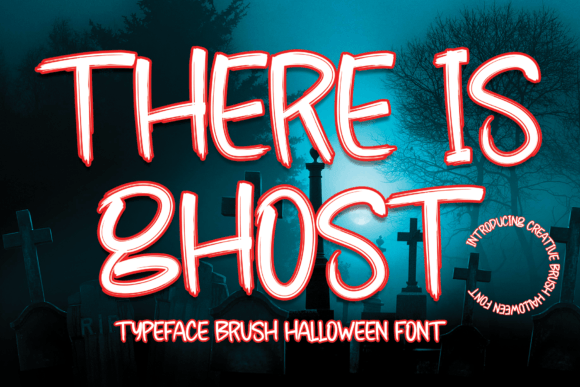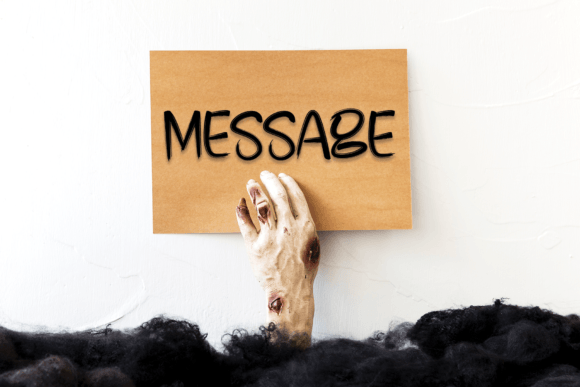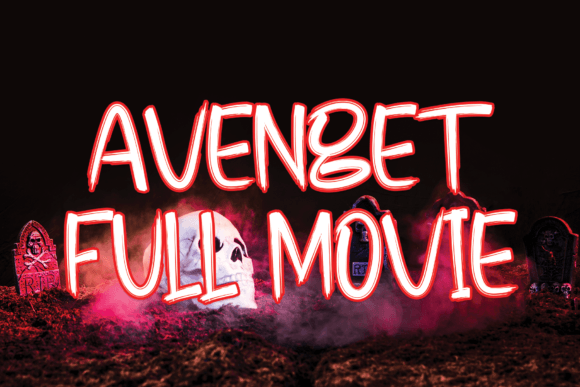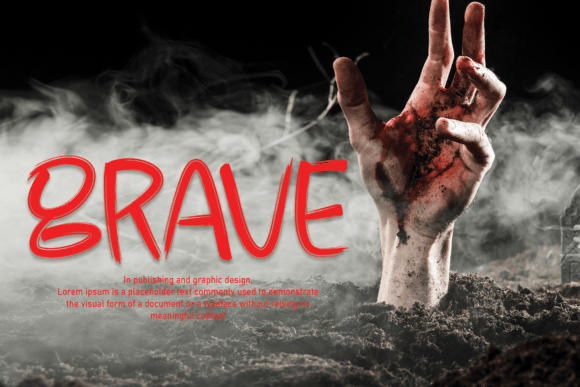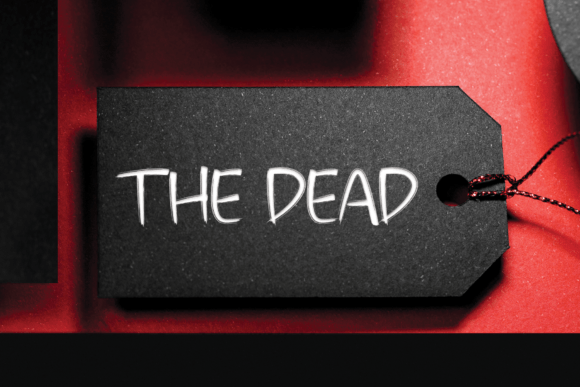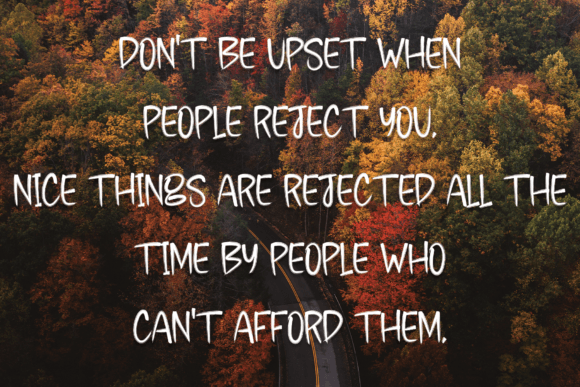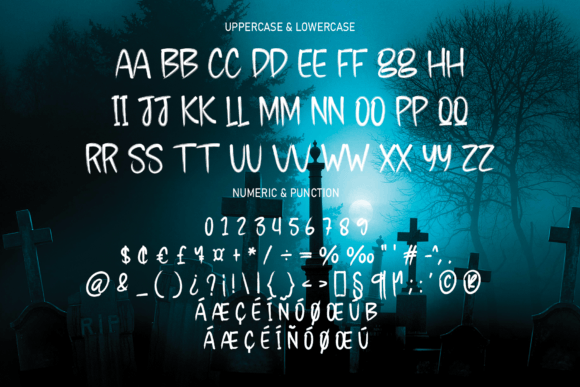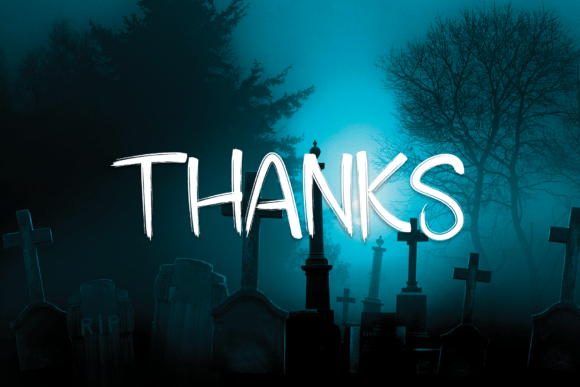
There is Ghost Font
About There is Ghost Font
“Ghost’s” latest style letters offer a perfect blend of modernity and elegance, making them an excellent choice for a wide array of creative applications. Whether you’re working on wall displays, wedding invitations, social media post logos, advertisements, product packaging, product designs, labels, photography, watermarks, invitations, stationery, or any project that demands a handwritten touch, these letters are the ideal solution.
The “Ghost’s” style letters exude a contemporary sophistication while retaining the charm of handwritten script. This combination makes them versatile and adaptable to various design needs.
For wall displays, “Ghost’s” letters can add a touch of elegance and personalization to your decor. Their modern yet handwritten aesthetic can elevate the visual appeal of any space.
When it comes to wedding invitations, these letters can infuse a sense of romance and uniqueness into your designs. Their elegant style complements the joyous occasion and adds a personal touch.
In the world of social media and branding, “Ghost’s” letters can enhance your visual identity. Whether it’s logos, advertisements, or product packaging, they can help your brand stand out and make a lasting impression.
For product designs and labels, these letters can convey a sense of craftsmanship and authenticity, especially in industries where a handmade feel is appreciated.
In photography and watermarks, “Ghost’s” style letters can subtly sign and personalize your work, adding an artistic and professional touch.
Invitations and stationery benefit from the elegance of these letters, making them ideal for formal events and correspondence.
In summary, “Ghost’s” latest style letters offer a versatile and sophisticated solution for a wide range of design projects. Their blend of modernity and handwritten charm makes them a valuable asset for anyone seeking to add a touch of elegance and personality to their creative work.